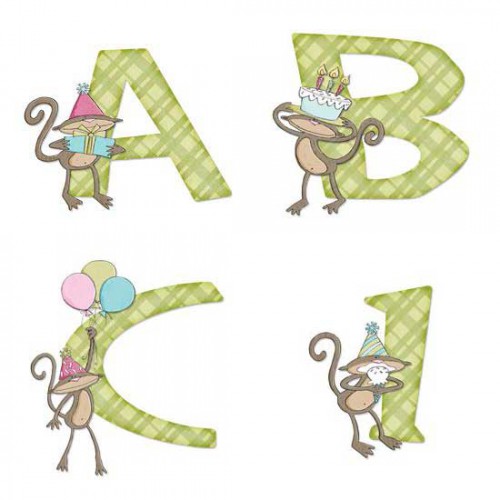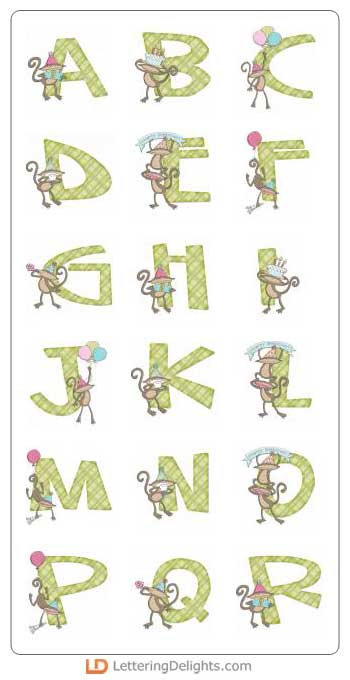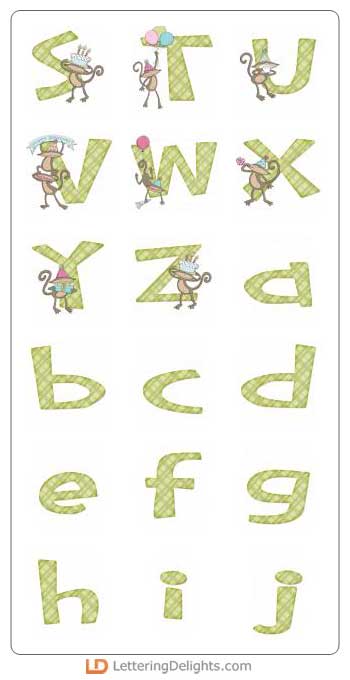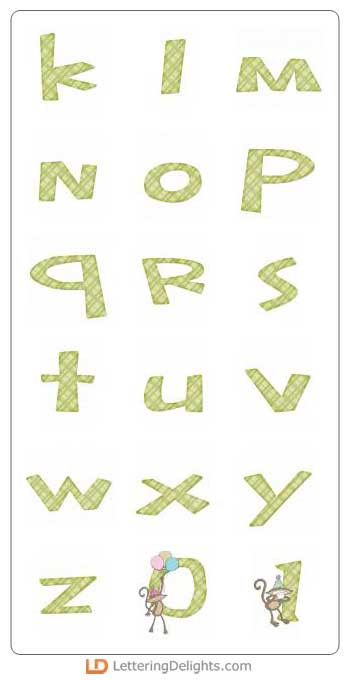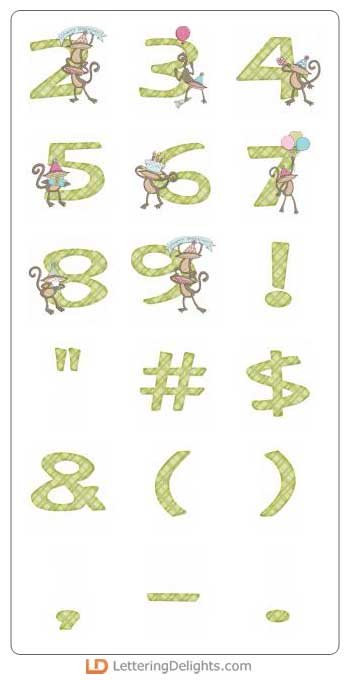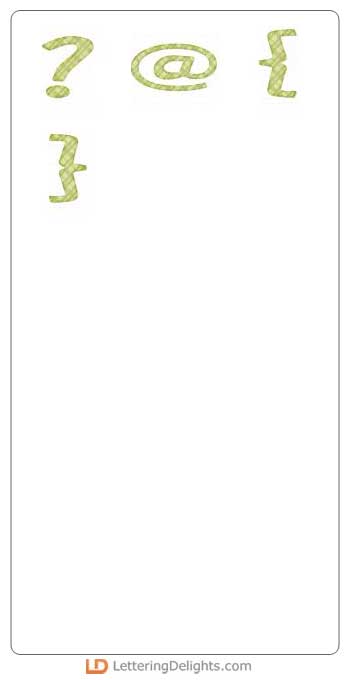
Birthday Monkey is a fun and festive alphabet with crazy monkeys celebrating a birthday adorning the letters and numbers. Makes a great addition to your digital scrapbooking library. Perfect for homemade party invitations or highlighting those special birthday memories.